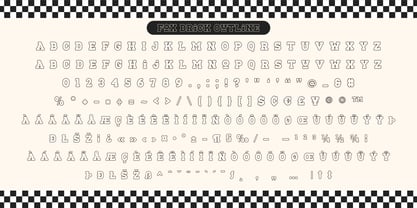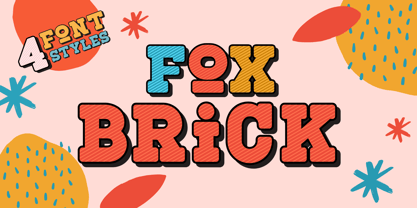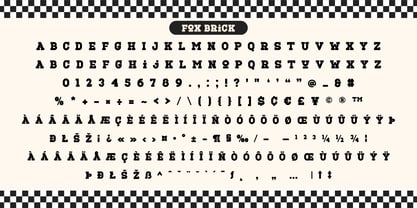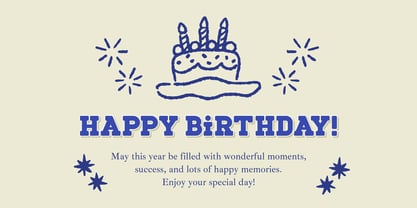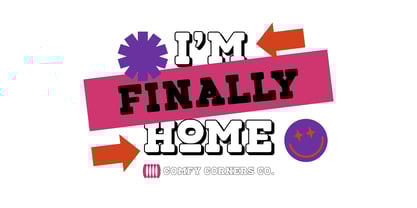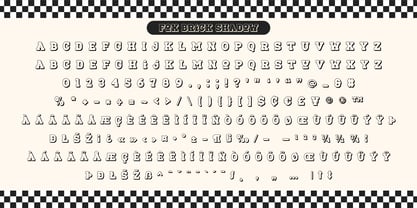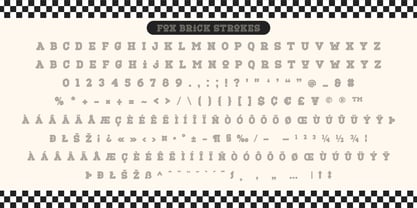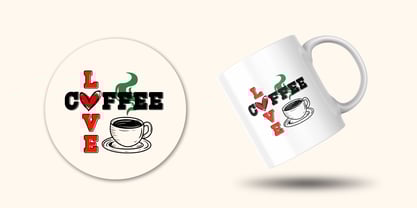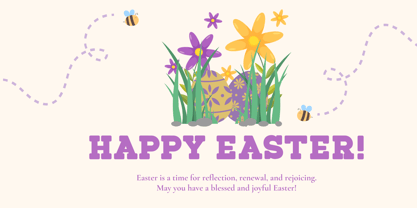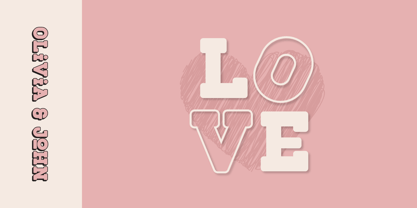
Fox Brick Outline
by Fox7
The Fox Brick Outline Font Family was designed by Rattana Rattanawan and published by Fox7. Fox Brick Outline contains 4 styles and family package options. More about this family
Add a splash of fun and bold personality to your designs with Fox Brick — a playful and chunky display font perfect for kids’ projects, branding, posters, packaging, and more. Inspired by retro comic styles and vibrant pop art, Fox Brick comes in 4 unique styles: Regular, Outline, Strokes, and Shadow. Each version brings a whimsical and eye-catching effect that makes your text pop!
With its thick, blocky letters and dynamic textures, Fox Brick is designed to grab attention and spread cheer. Whether you're designing a coffee mug, sticker, or playful headline, this font will give your creation an energetic, friendly vibe.